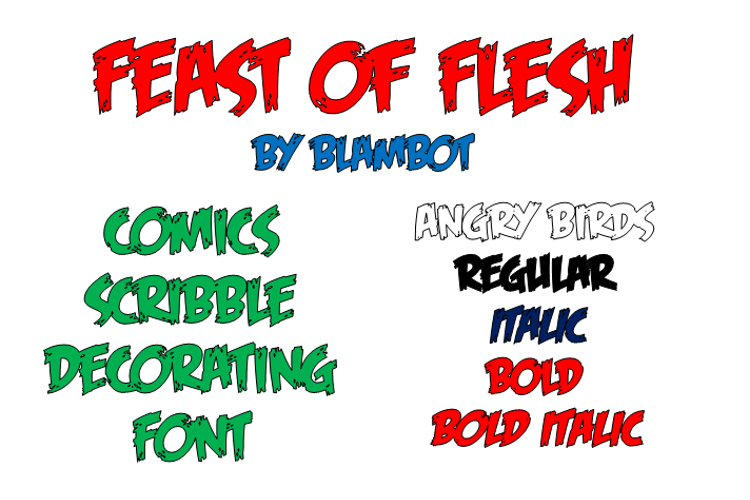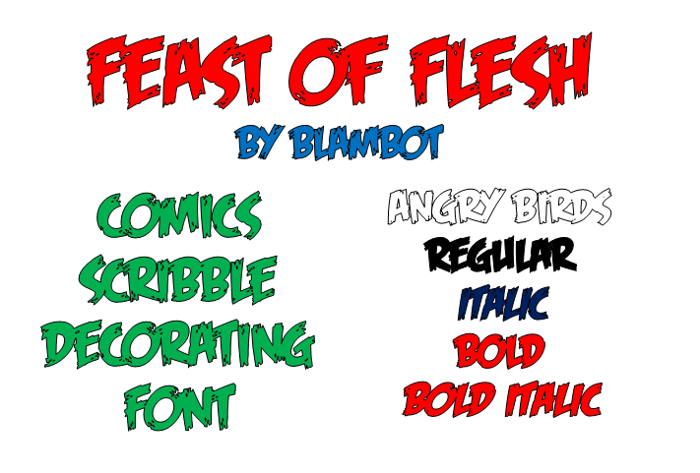
Feast of Flesh BB Font
Pewdiepie's font! Skank you! <3
My sonis going to have an Angry Birdday- Party and now mother has the font to do the invitations 😃
Good for comics, THX